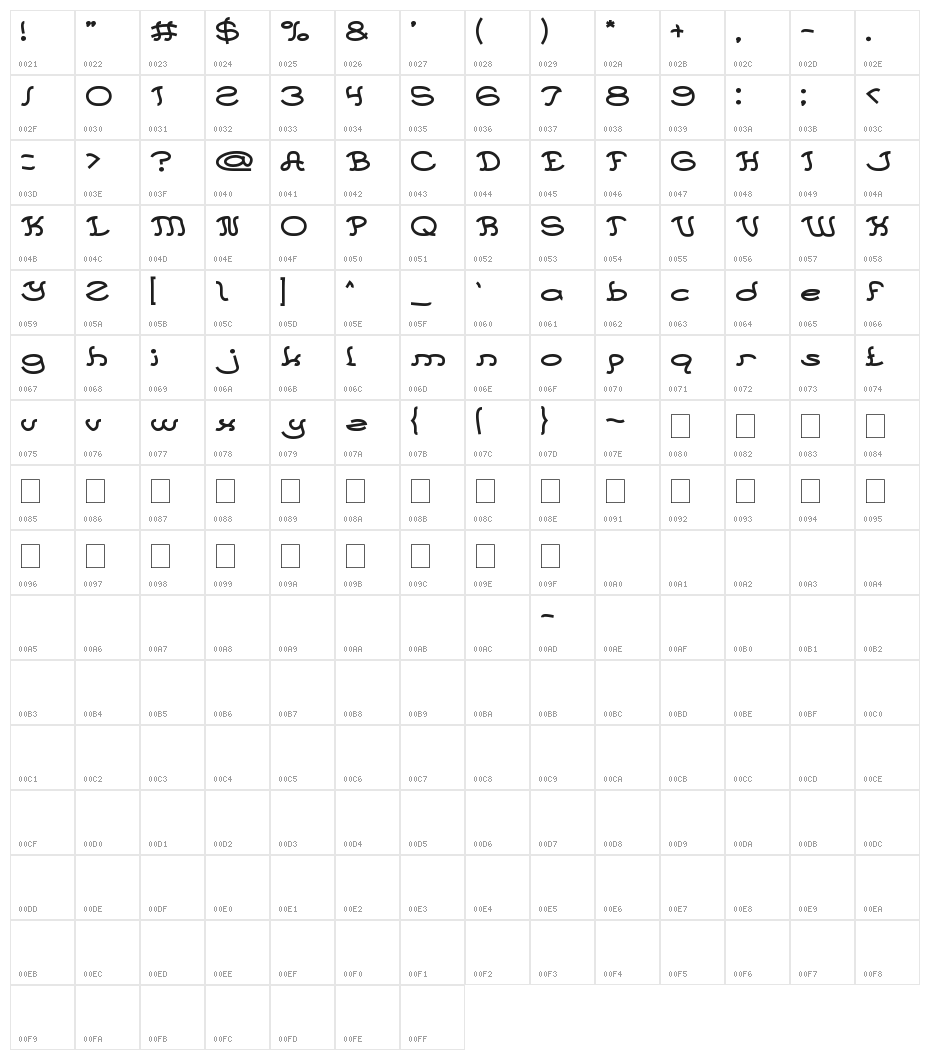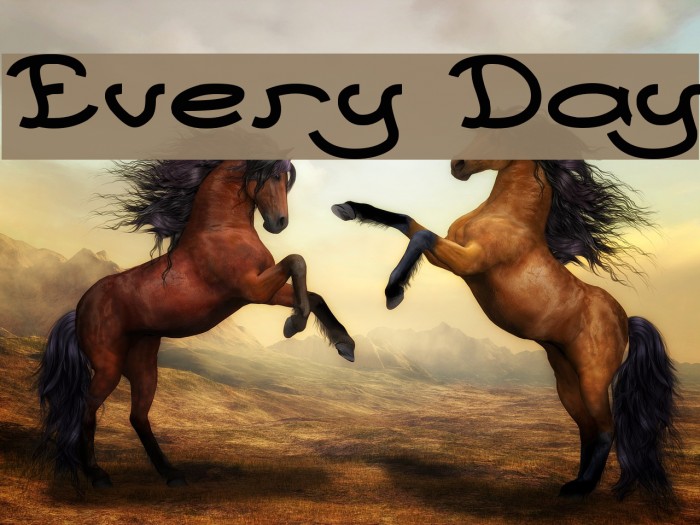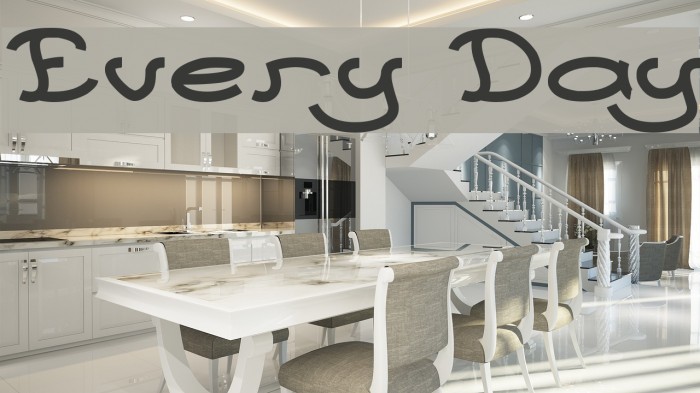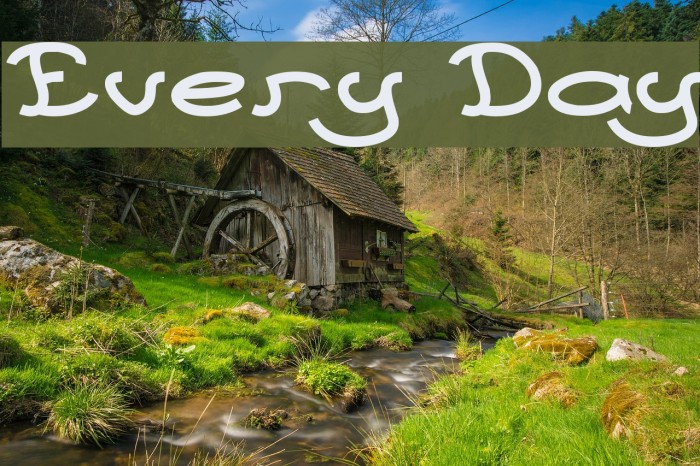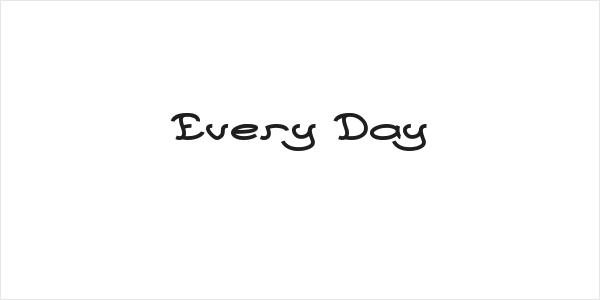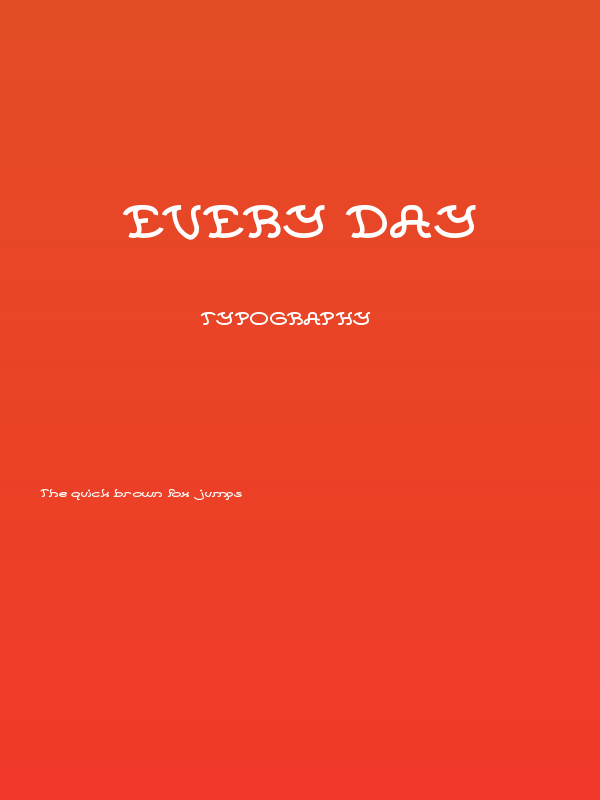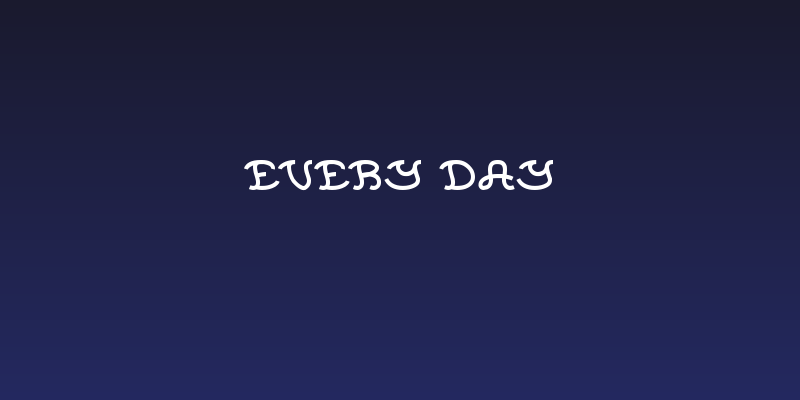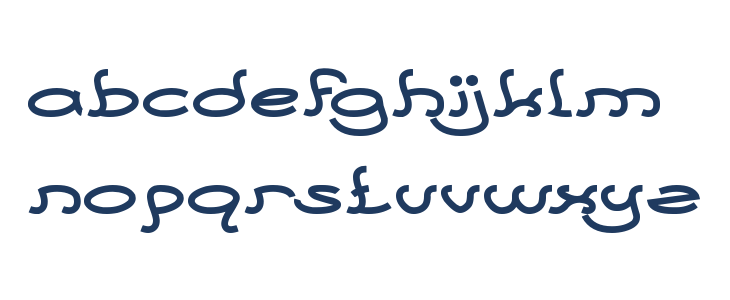
Every Day Font
Every Day Description
This font features a playful and whimsical style with a unique twist on each character. The letters have a flowing, almost handwritten quality, with rounded edges and a slight slant that adds to its charm. The uppercase letters are bold and prominent, while the lowercase letters maintain a consistent flow, making it easy to read. Numbers and special characters follow the same playful design, ensuring a cohesive look across all text. This font is ideal for projects that require a touch of fun and creativity, such as children's books, playful branding, or casual invitations.
Use CaseHeadlines, Logos, Invitations
Proposed ProjectsChildren's books, playful branding, casual invitations, creative posters.